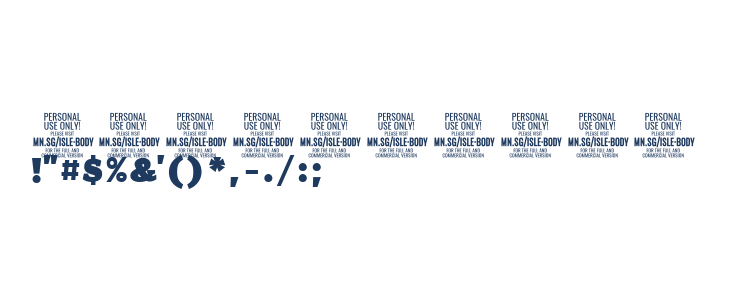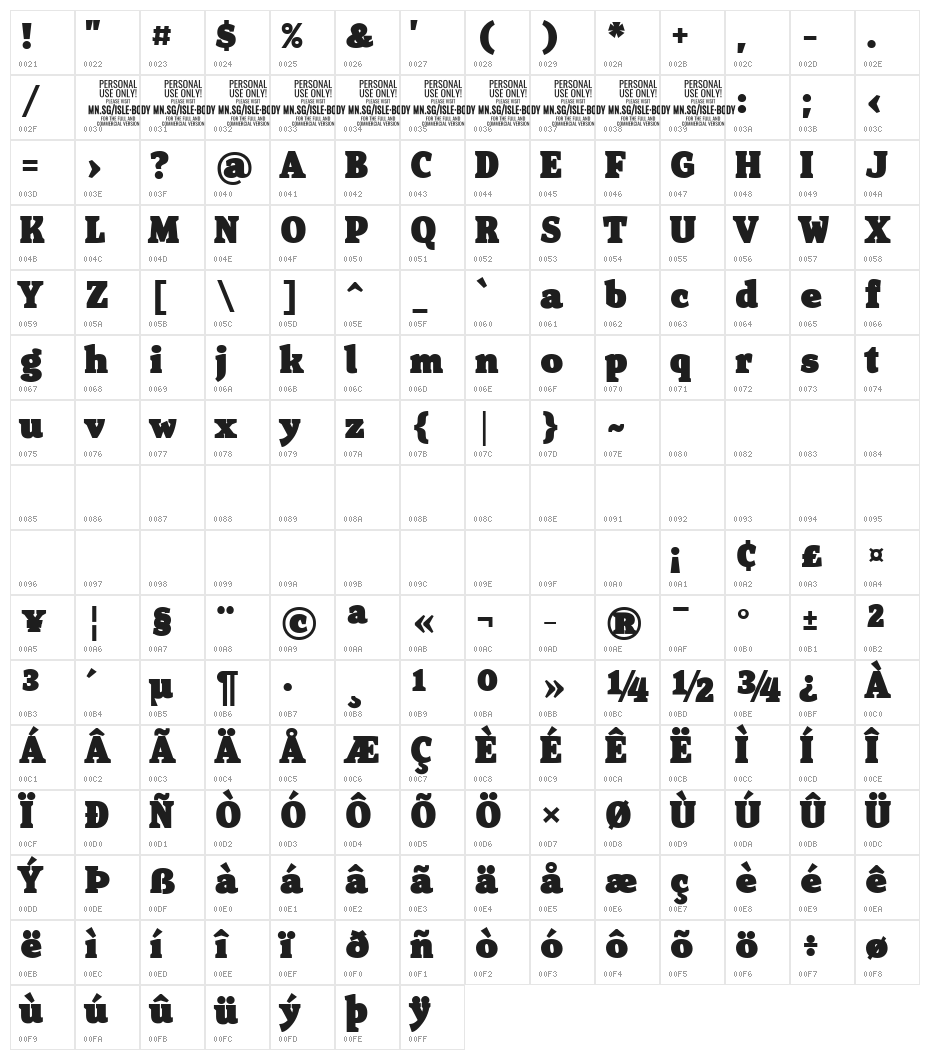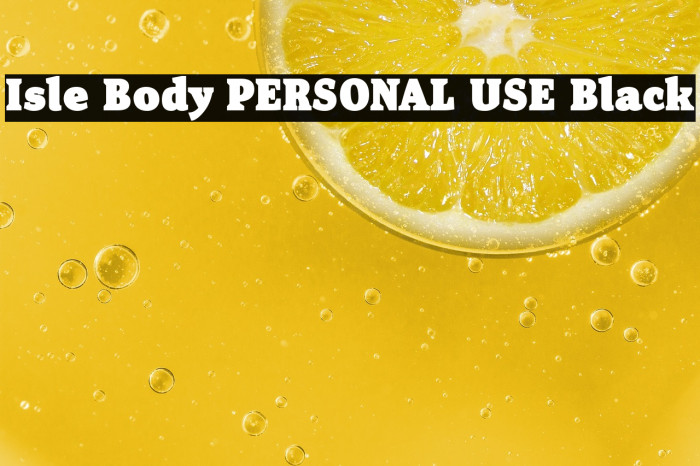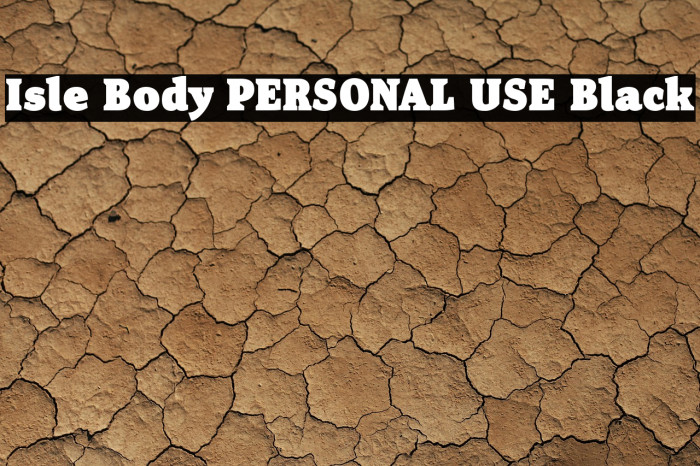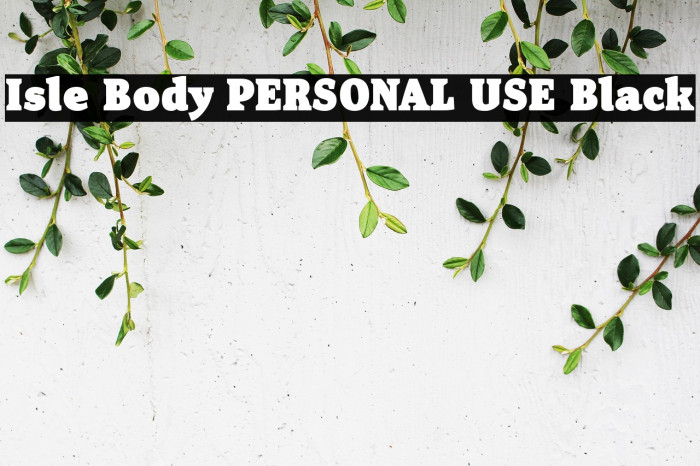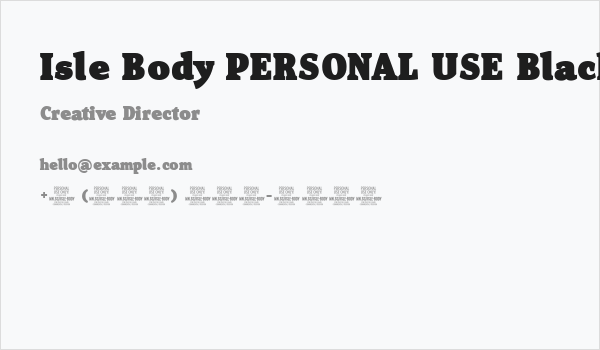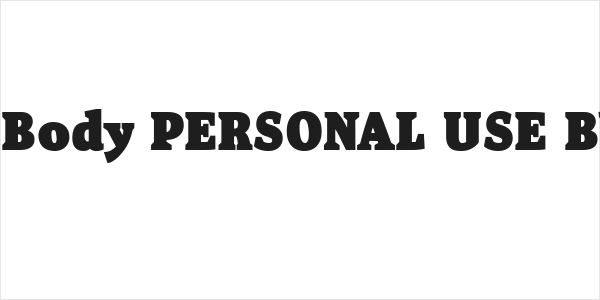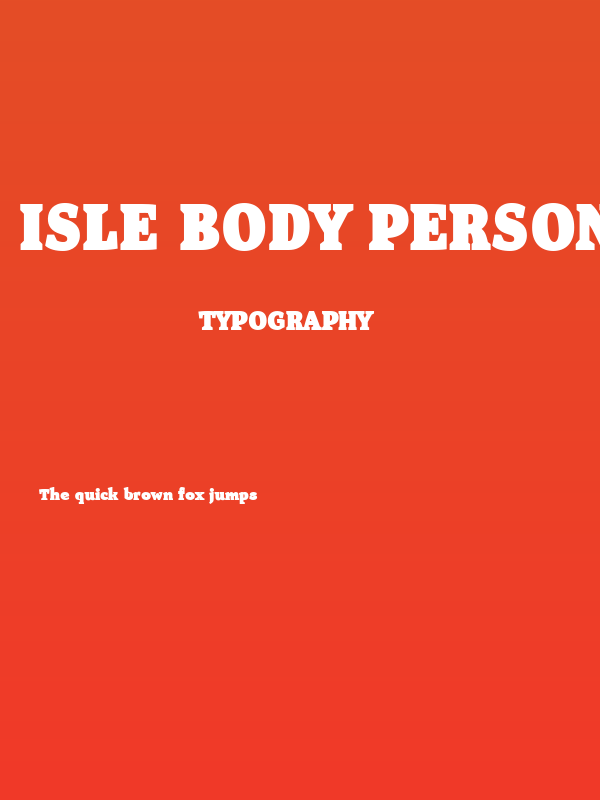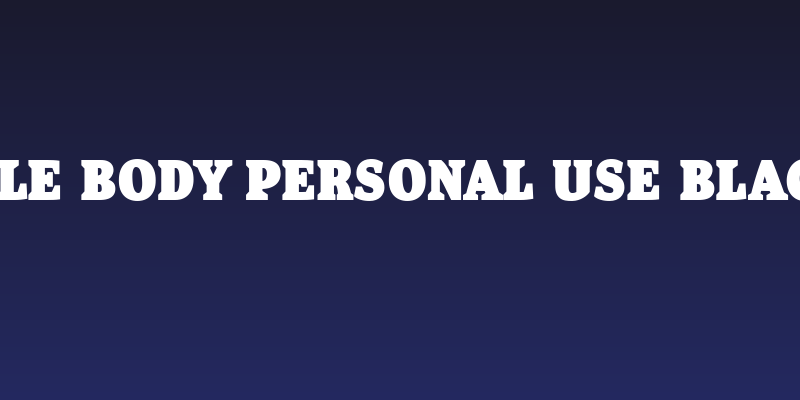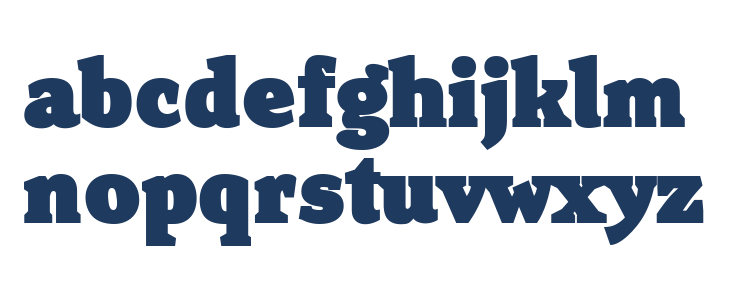
Isle Body PERSONAL USE Black Font
Isle Body PERSONAL USE Black Description
This font features a bold and impactful design, characterized by thick, heavy strokes that convey a strong presence. The uppercase and lowercase letters maintain a consistent weight, providing a uniform appearance across the alphabet. The characters are slightly condensed, enhancing their boldness and making them suitable for attention-grabbing headlines or titles. The font's style is modern yet retains a classic touch, making it versatile for various design projects. The special characters are designed with the same boldness, ensuring consistency throughout the typeface.
| Proposed Projects | Ideal for headlines, posters, branding, and any project requiring a strong visual impact. |